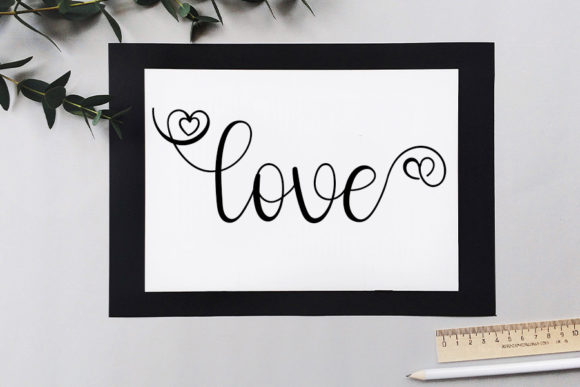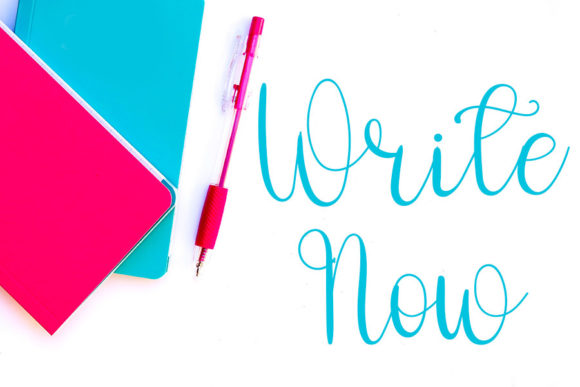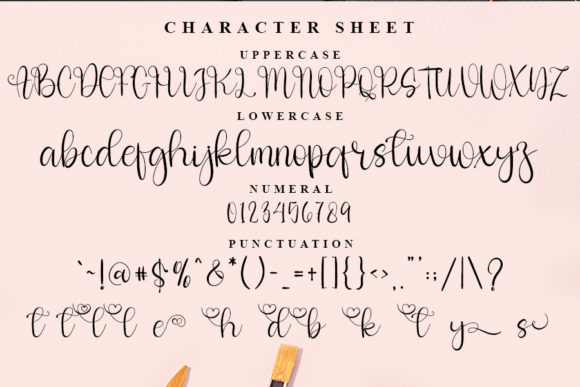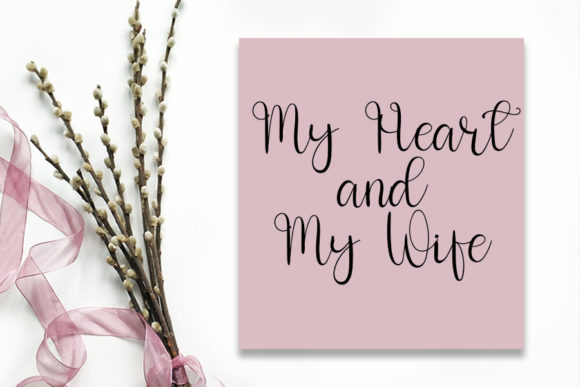
About Baby Boss Font
Baby Boss is a chic, refined script font that emanates sophistication and elegance. Its stylish alternates and ligatures make this font the perfect match for any project.